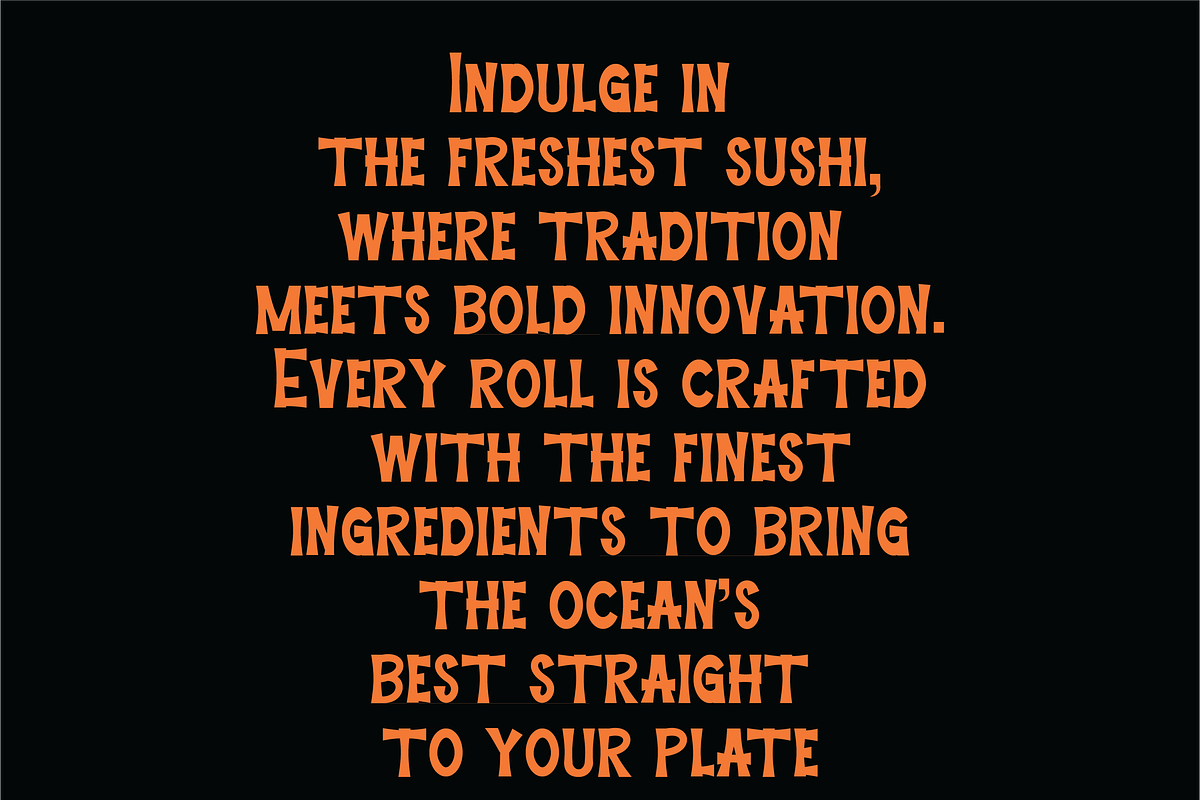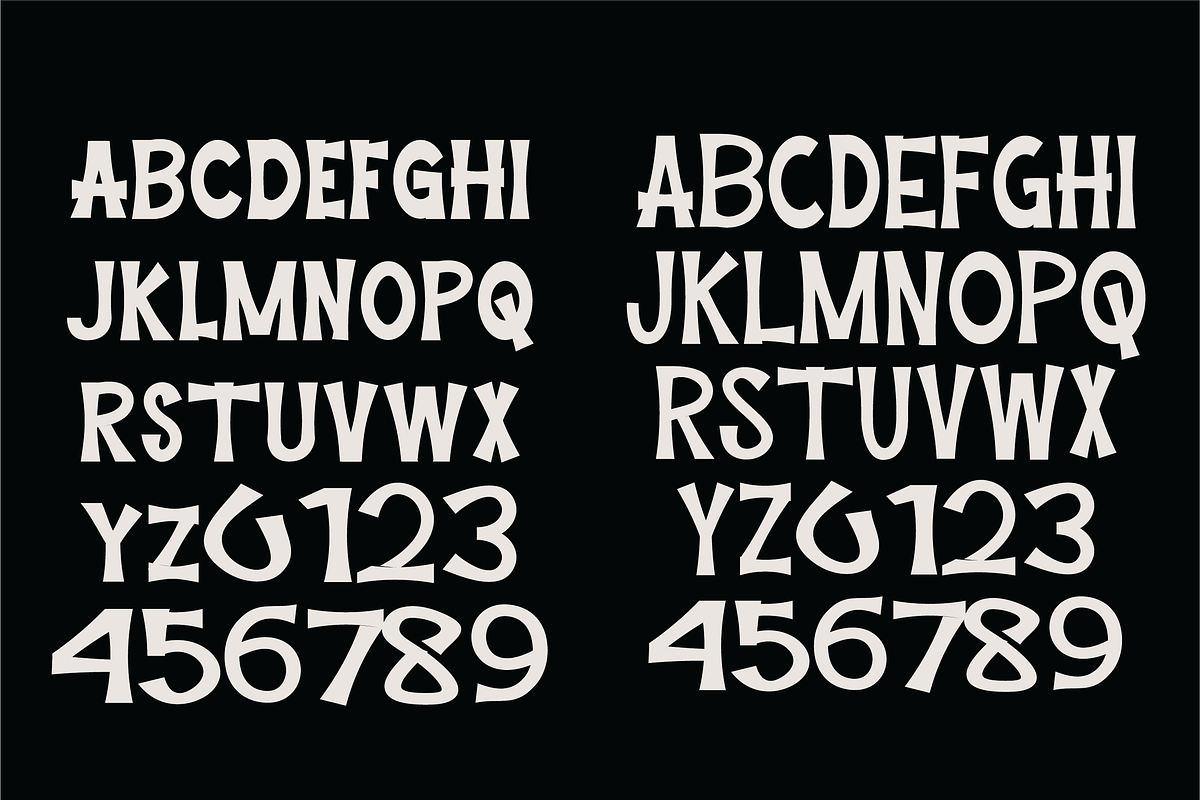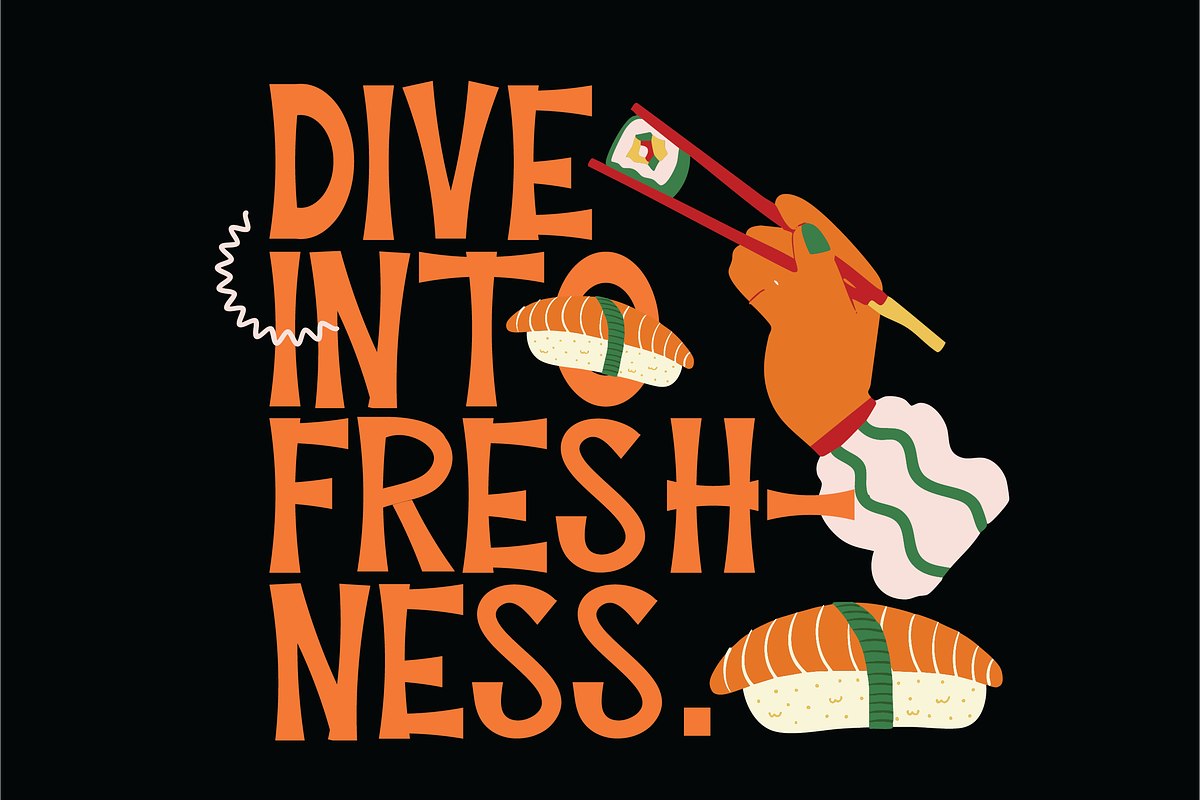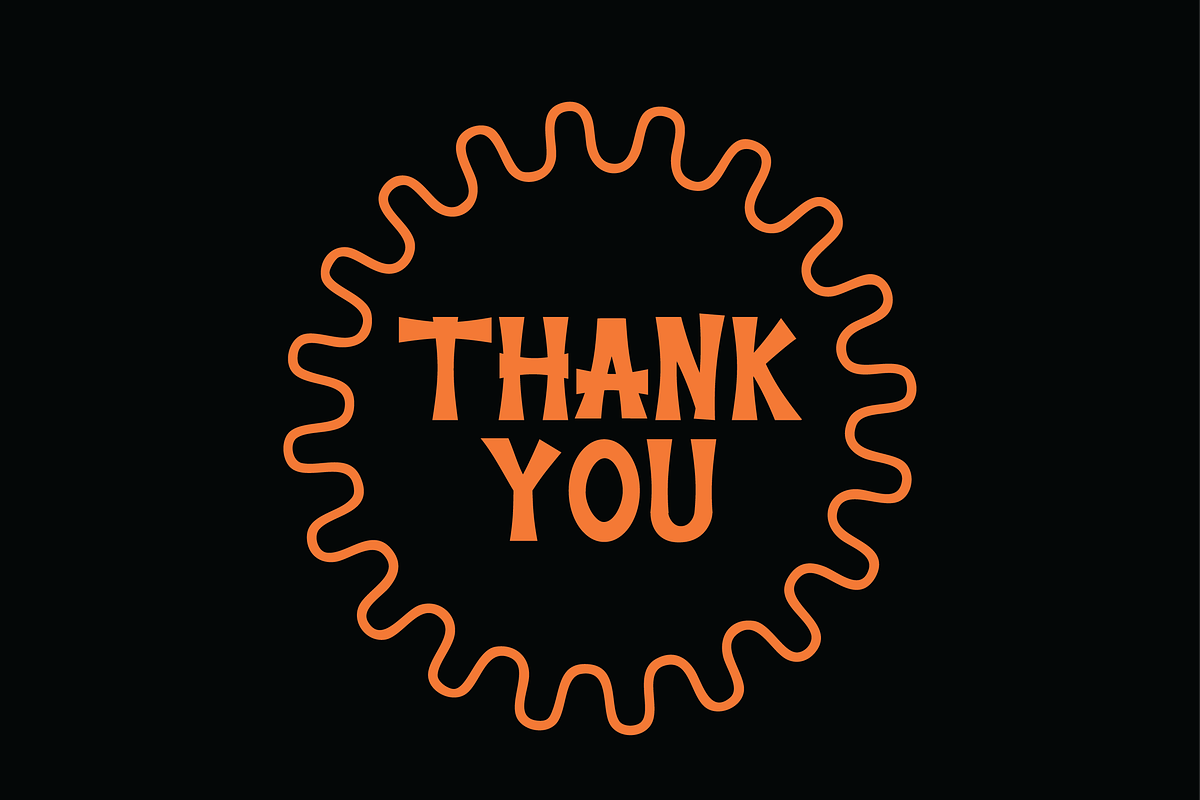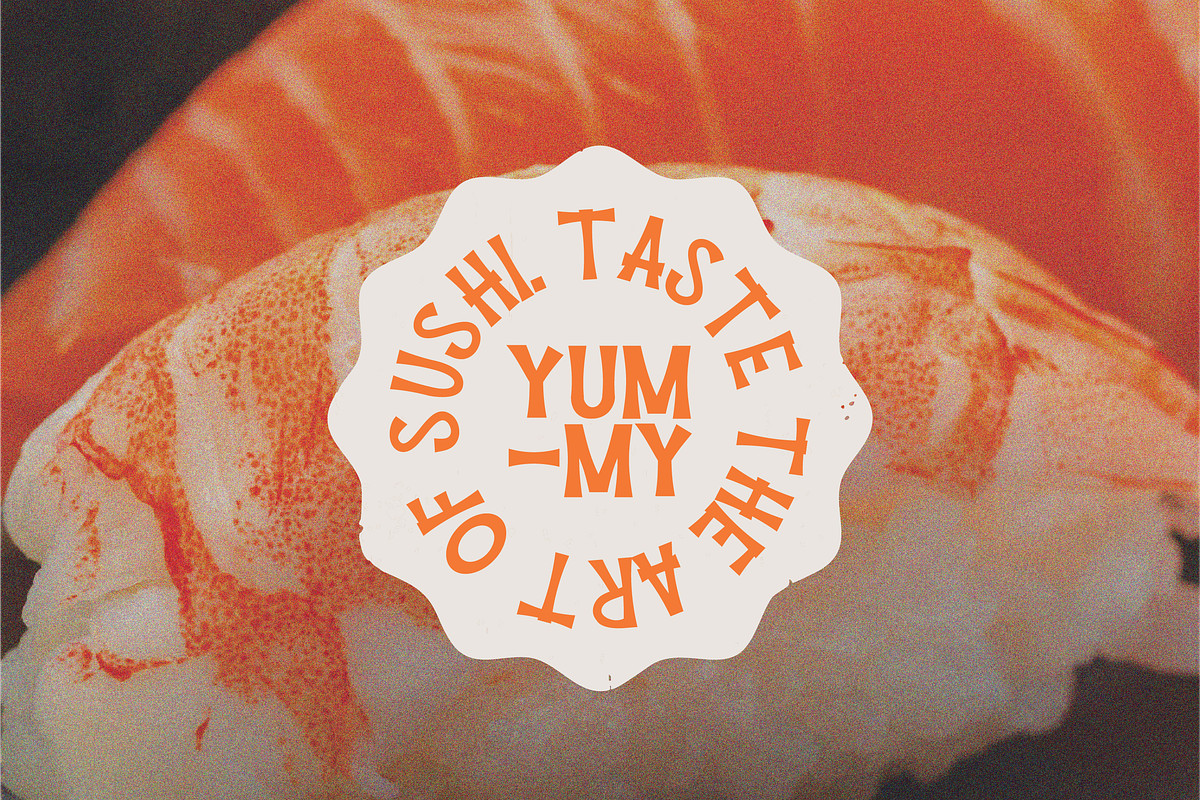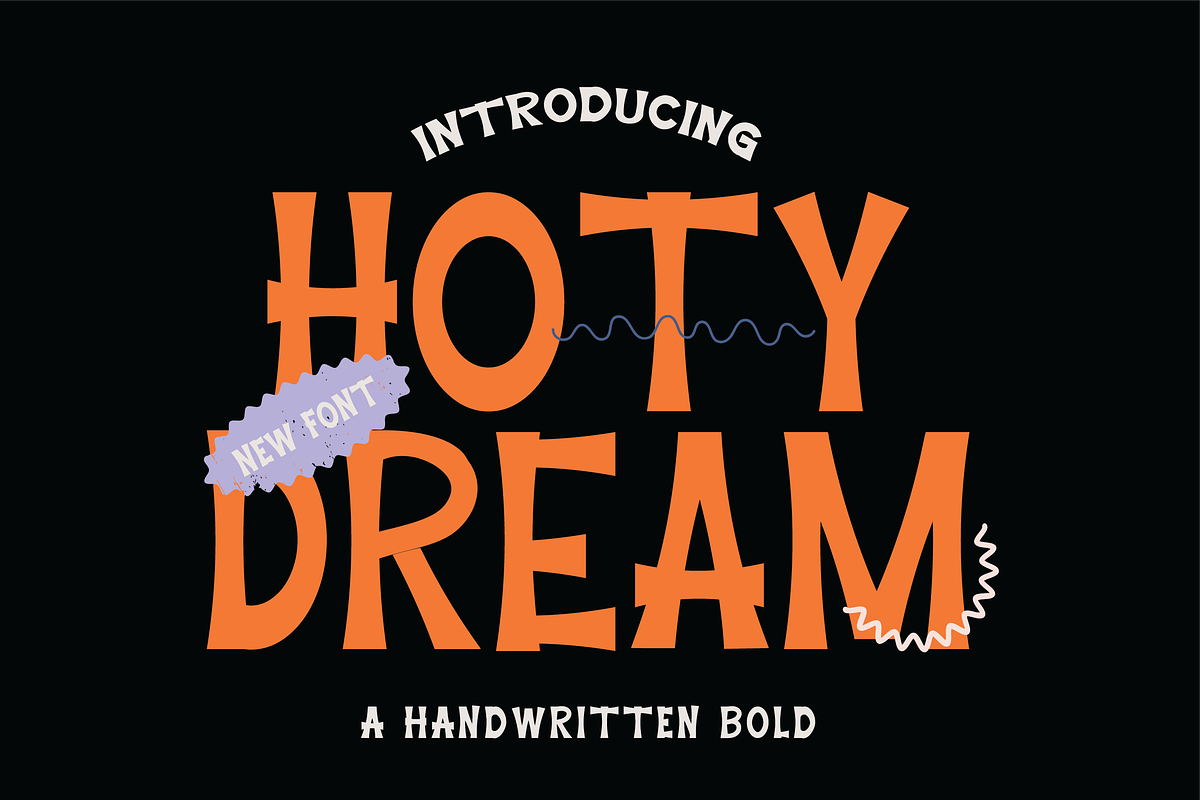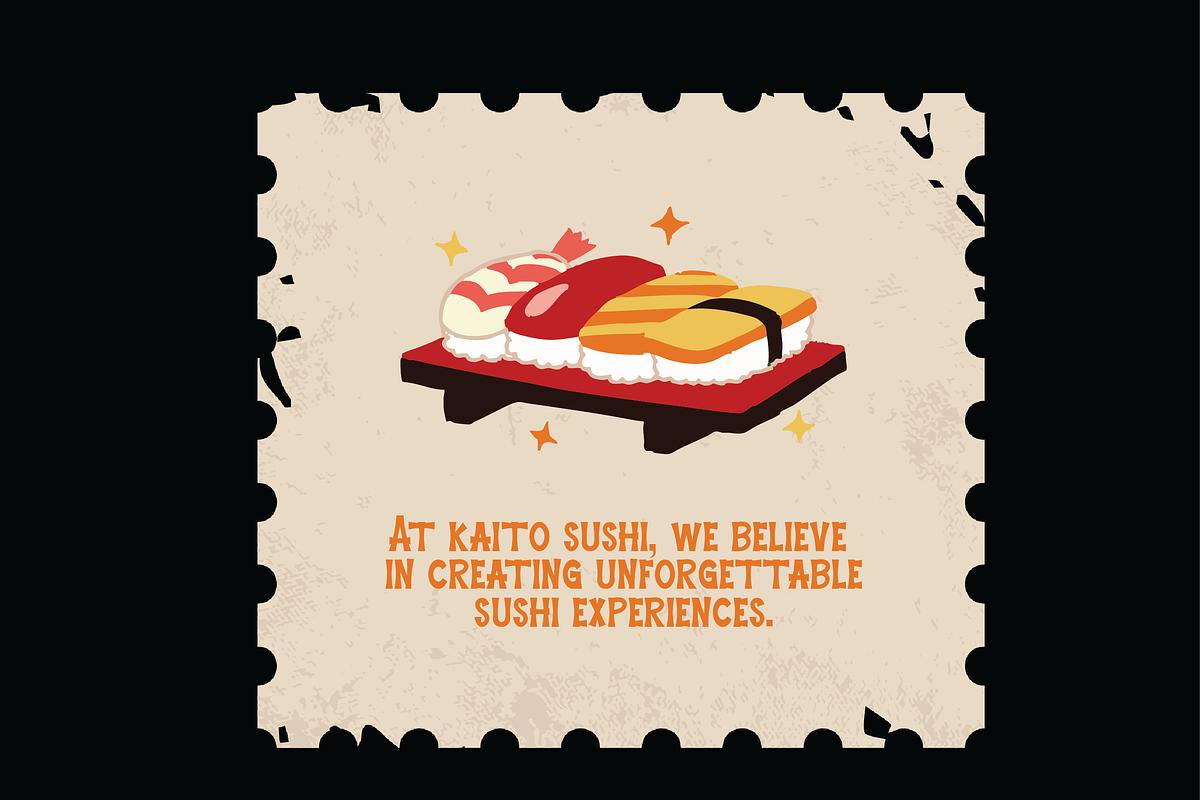
Hotydream - Handwritten Bold
Hotydream The font has a bold, playful, and dynamic look, with sharp edges and exaggerated letterforms. The use of bright orange adds an energetic and eye-catching quality to the design.